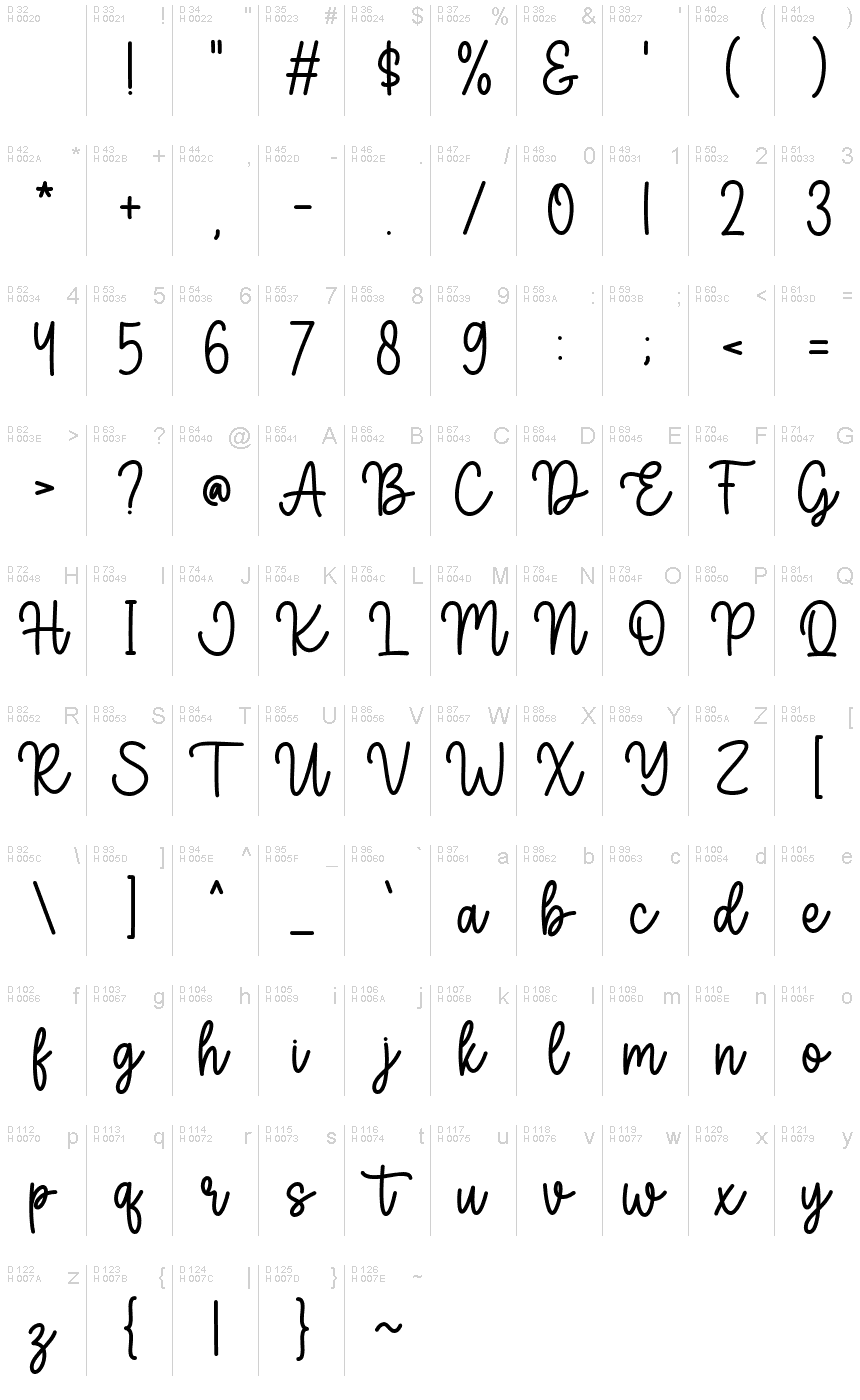
Cutie Reindeer, the perfect handwritten font for all your creative projects, has arrived! Designed by Nirmala Creative, this semi-light typeface adds a playful yet elegant touch to any design. With its whimsical strokes and charming curves, Cutie Reindeer is ideal for greeting cards, invitations, social media graphics, and even children's books. Let this adorable font infuse your designs with warmth and personality. Whether you're creating holiday-themed content or simply want to add a touch of cuteness to your work, Cutie Reindeer is the perfect choice. Try it out today and see the magic unfold!